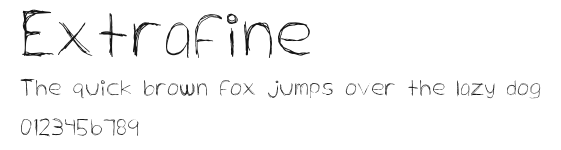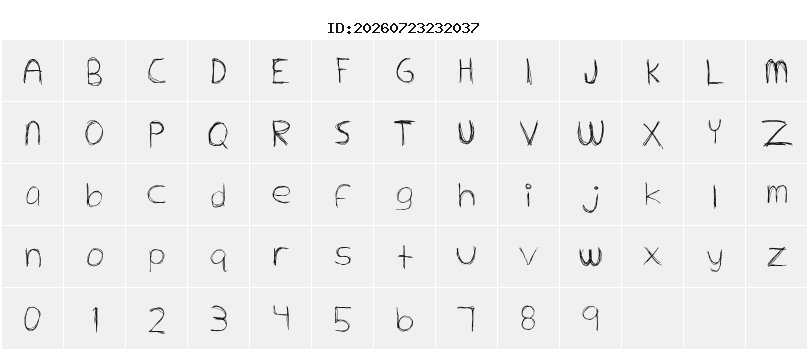
• Font Name: Extrafine
• Designer: miko ramirez
About Extrafine.ttf
Extrafine.ttf is a modern, elegant sans-serif font designed for ultimate readability and visual harmony. Perfect for branding, headlines, web design, and print materials.